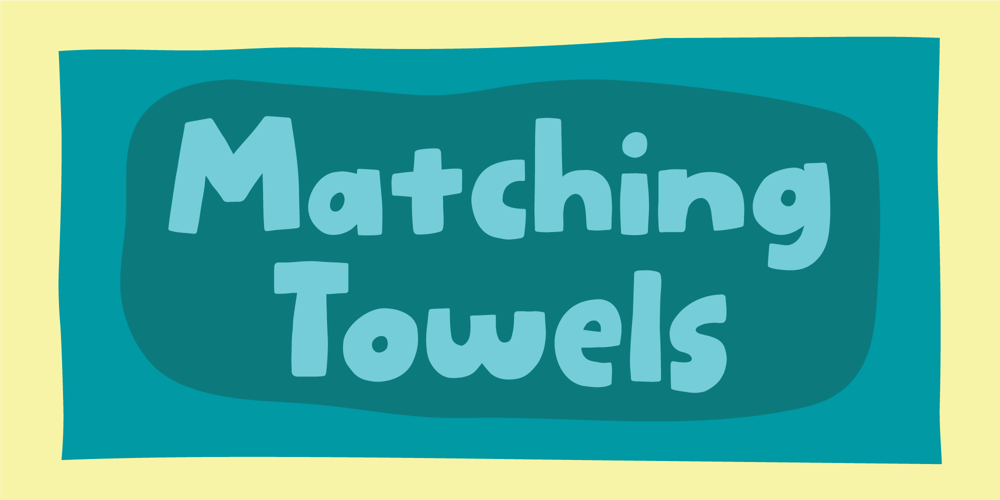
Matching Towels
Matching Towels font
Matching Towels Font Family was designed by Jakob Fischer and published by PizzaDude.dk. Matching Towels contains 2 styles and family package options. The name “Matching Towels” comes from a B-52s song called “Rock Lobster” which is a kinda weird beach party song, but yet filled with rhythm and leaves you with an urge to dance like crazy. I hope my Matching Towels font leaves you with an urge to create funny, weird, wild and funky designs!